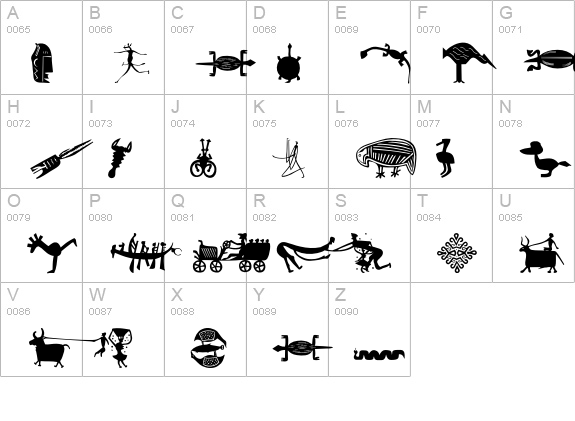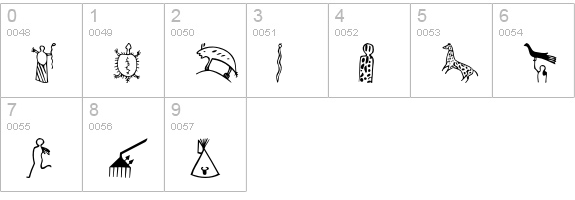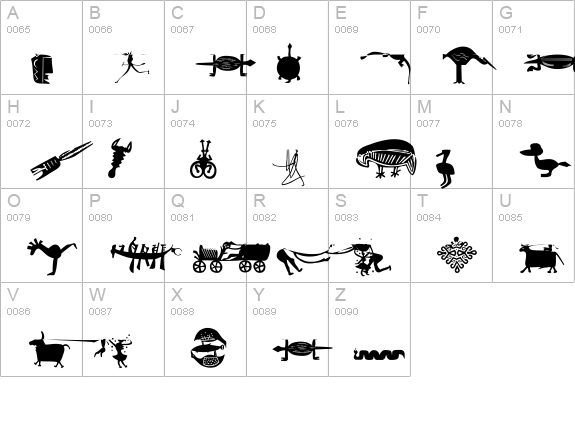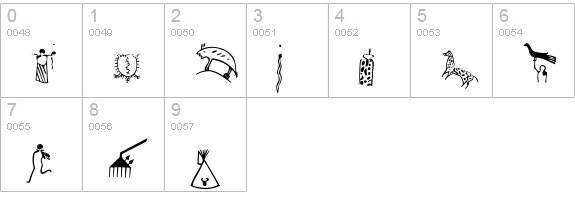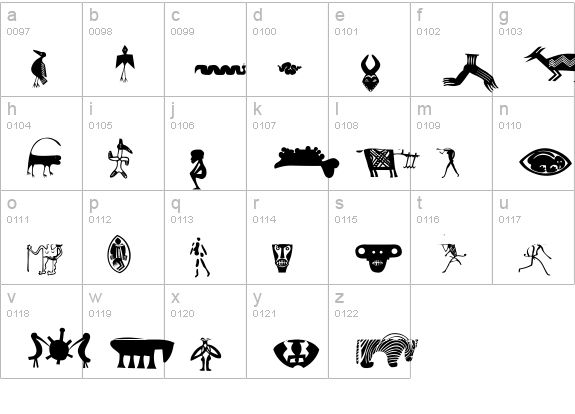
EthnoFont Font Details
EthnoFont is a beautifully crafted font that embodies the spirit of culture and tradition. With its unique blend of intricate patterns and elegant curves, EthnoFont brings a touch of the exotic to any design project. This versatile font is perfect for adding a touch of global flair to your creations, whether you're working on a branding project, website design, or print materials. What sets EthnoFont apart is not just its stunning aesthetics, but also the fact that it is available for free. Yes, you read that right - this gorgeous font is freely available to download at FontsMarket.com. So go ahead and bring a touch of ethnic charm to your designs with EthnoFont, and let your creativity soar to new heights.